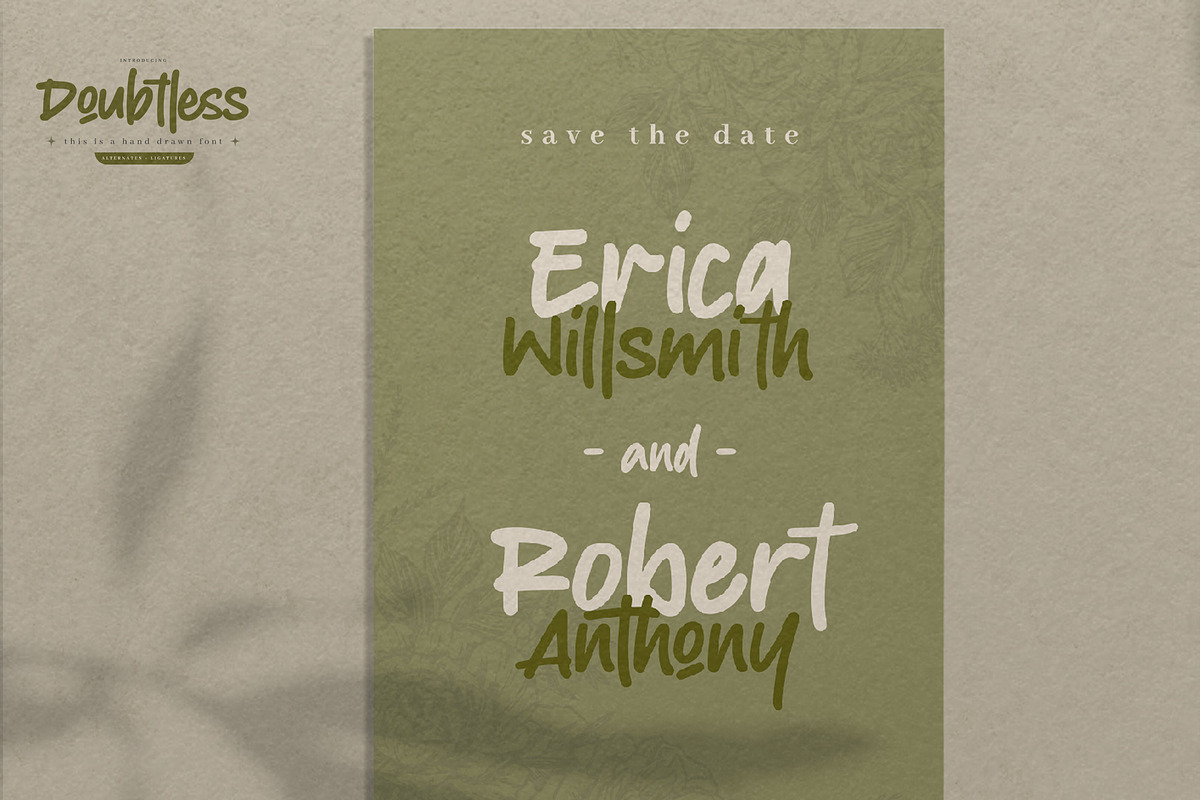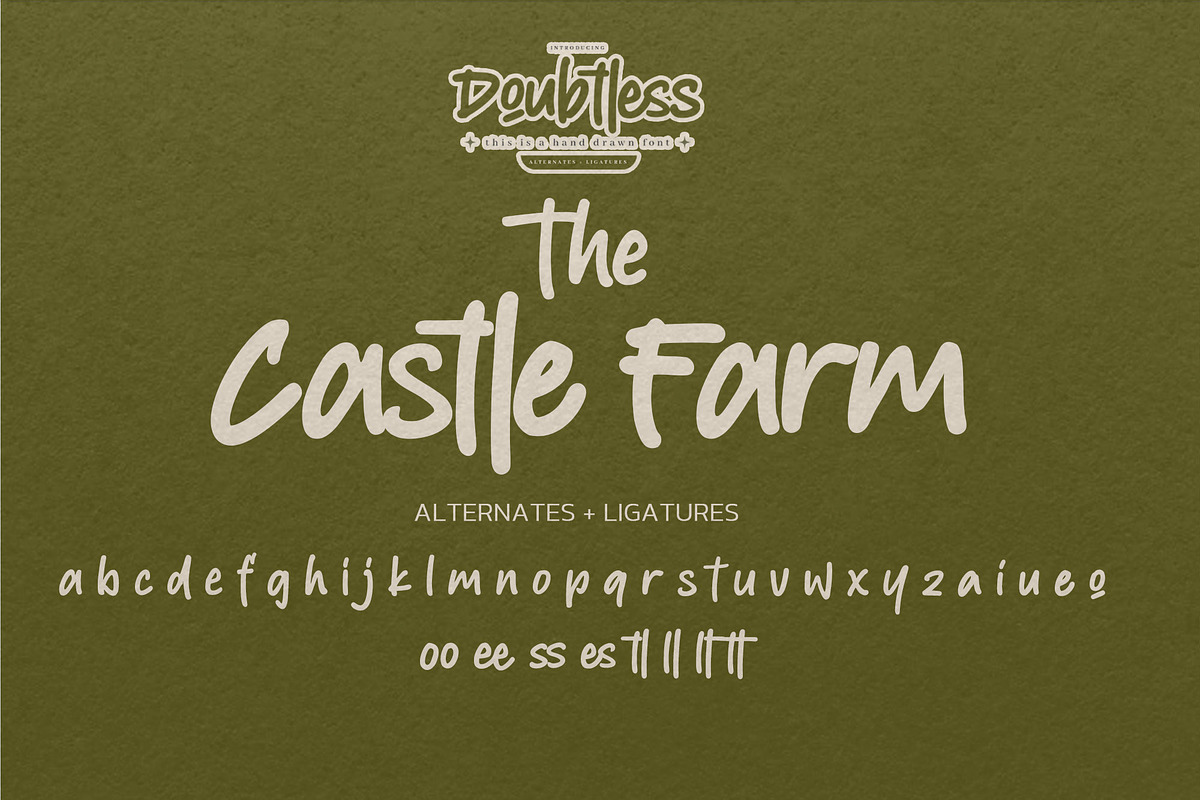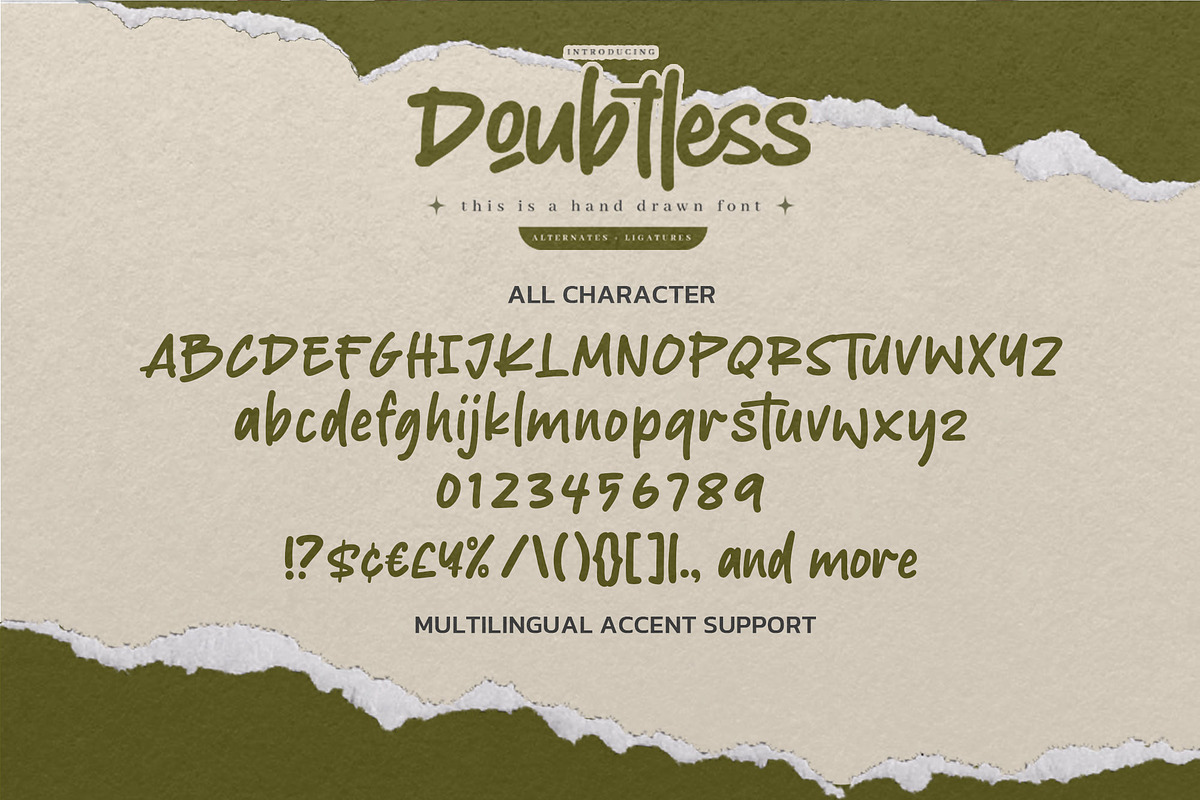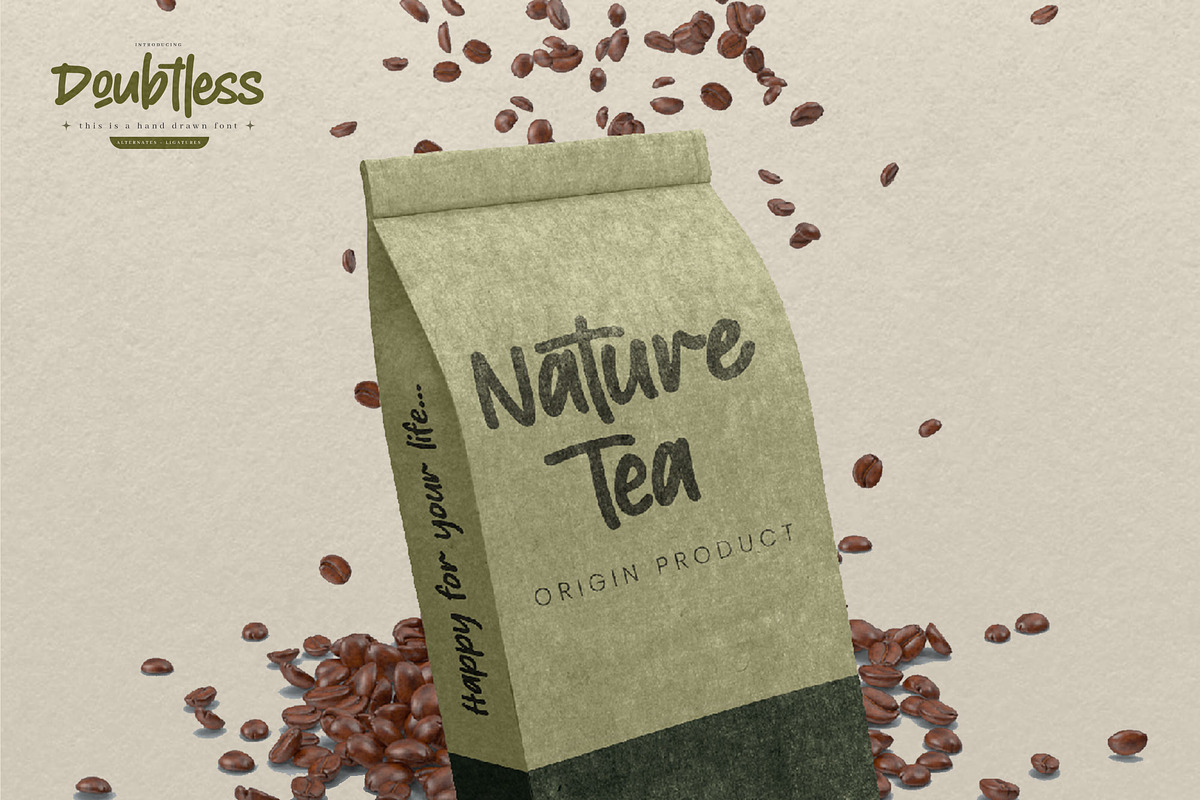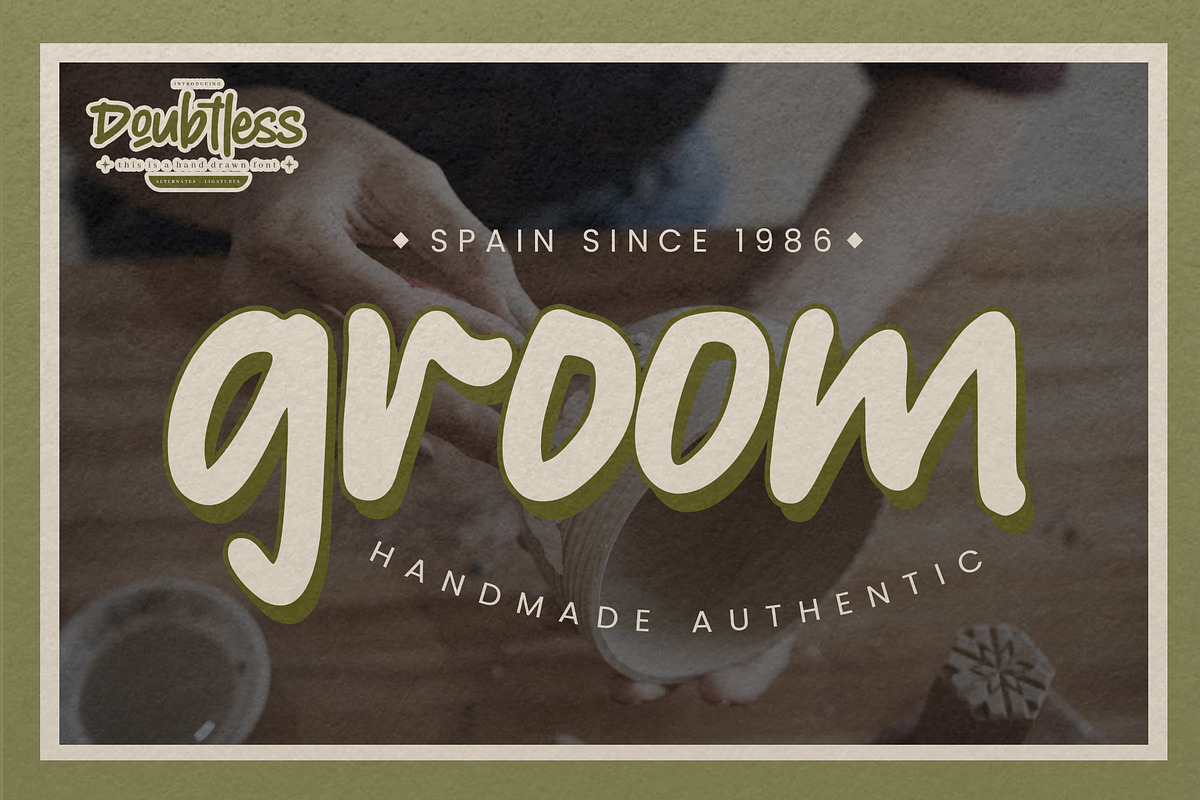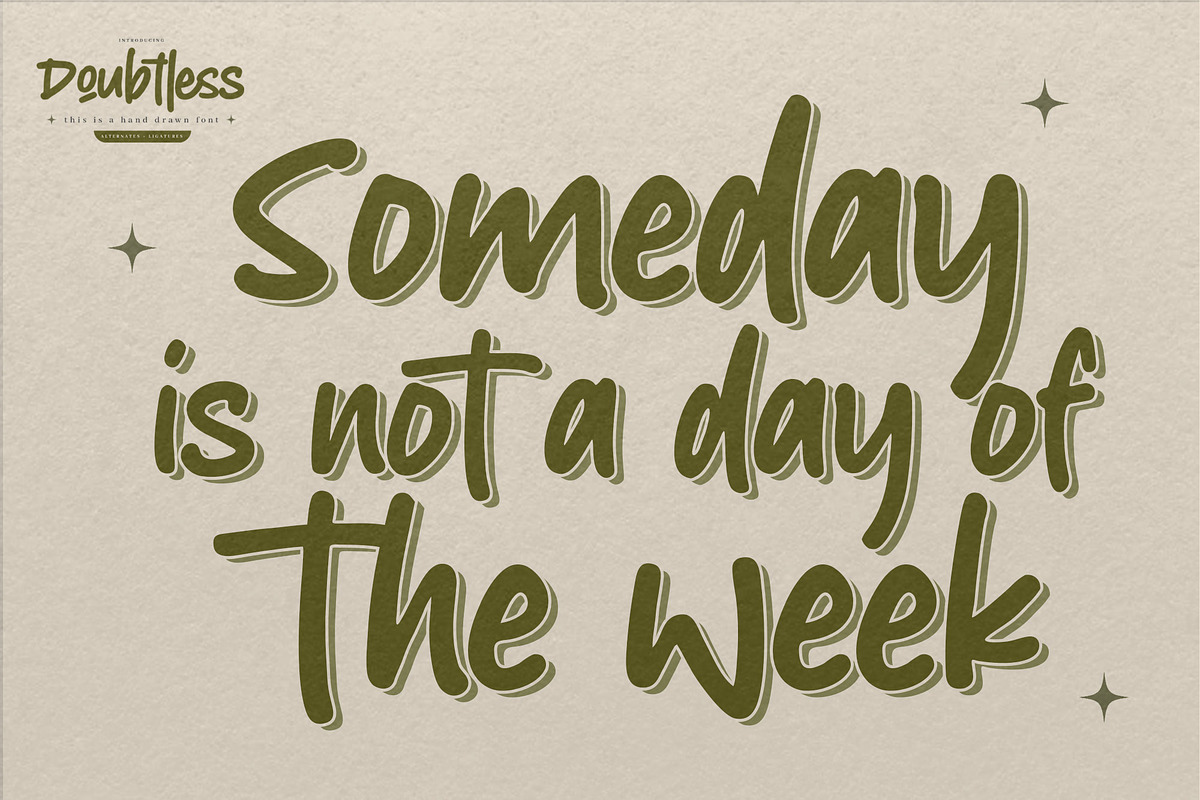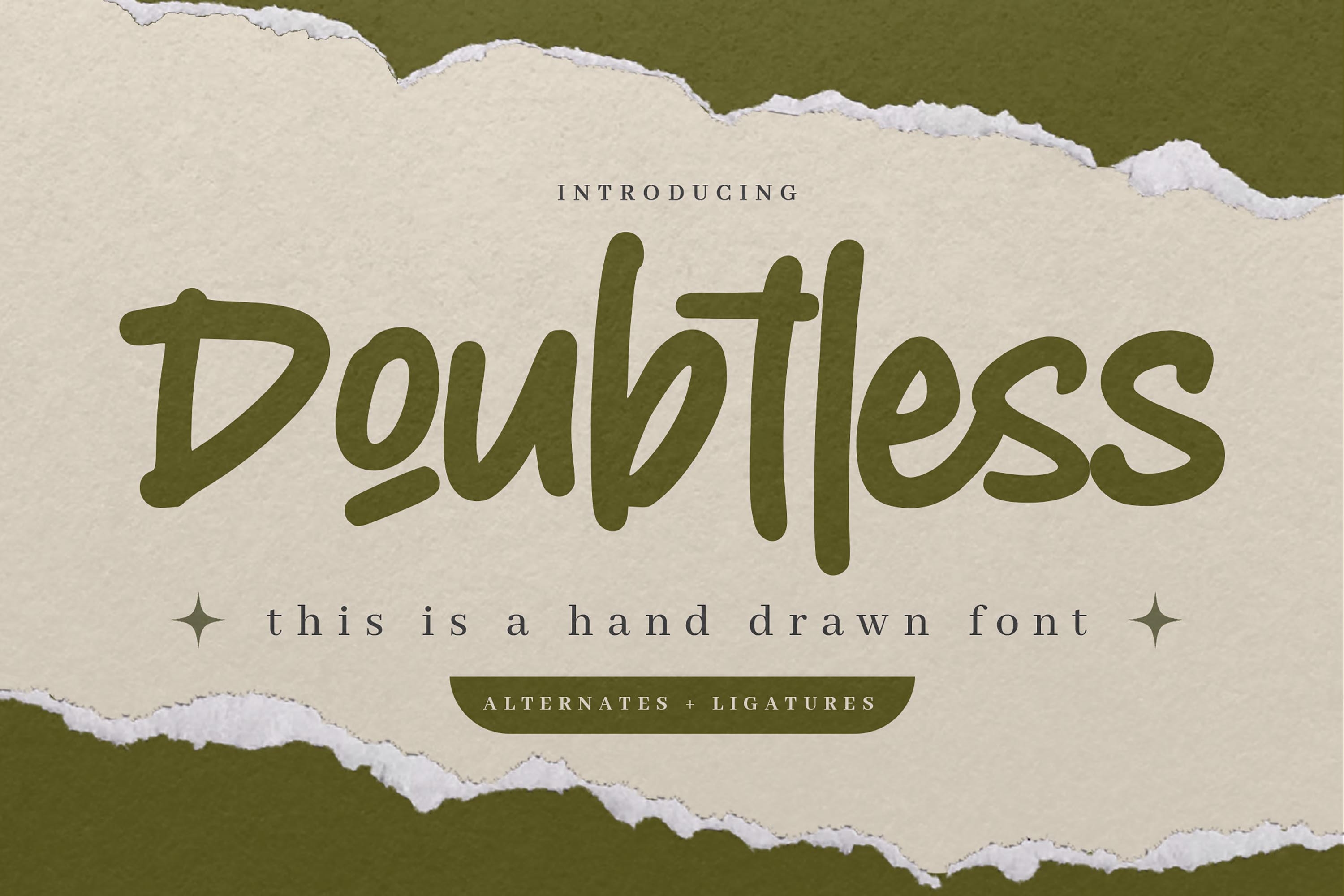
Doubtless - Hand Drawn Font
Hello Everyone, introduce our new product Font Doubtless This Is Hand Drawn Font. This is a Textured Natural Style and classy style with a clear style and dramatic movement.
This font Doubtless is great for your next creative project such as logos, printed quotes, invitations, cards, product packaging, headers, Logotype, Letterhead, Poster, Design this font is great for your creative projects such as watermark on photography, and perfect for logos & branding, invitation,advertisements,product designs, stationery, wedding designs,label ,product packaging, special events or anything that need handwritting taste.
That is has charming, authentic and relaxed characteristic more natural look to your text.
You can activate 8 Ligatures and 31 Alternate glyphs OpenType panel.